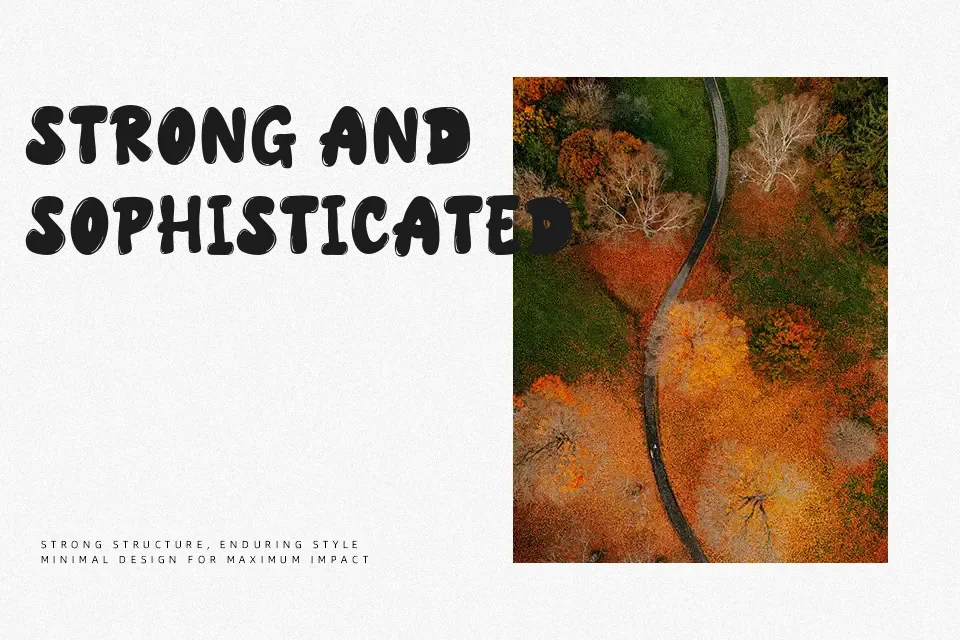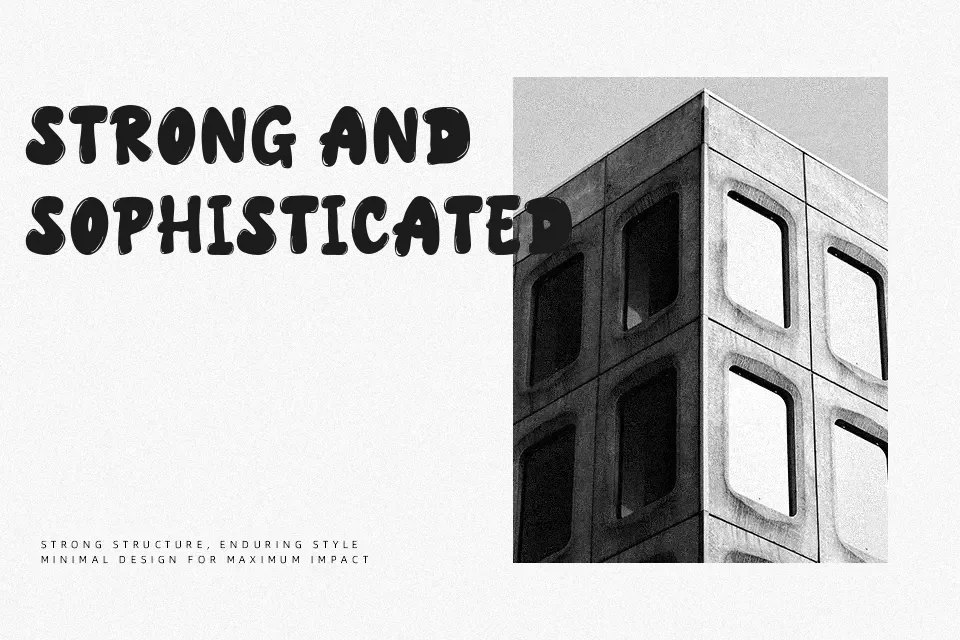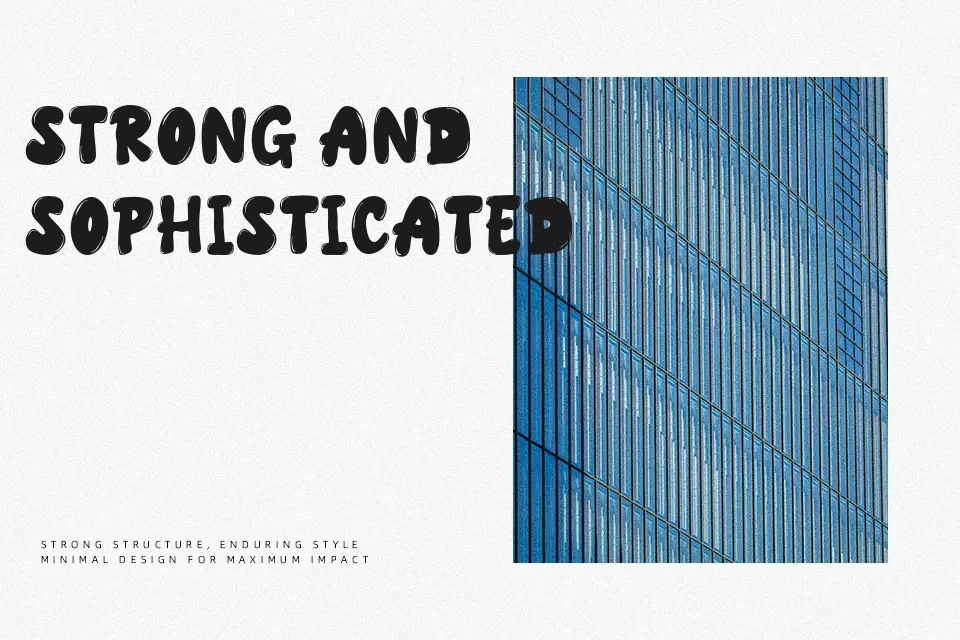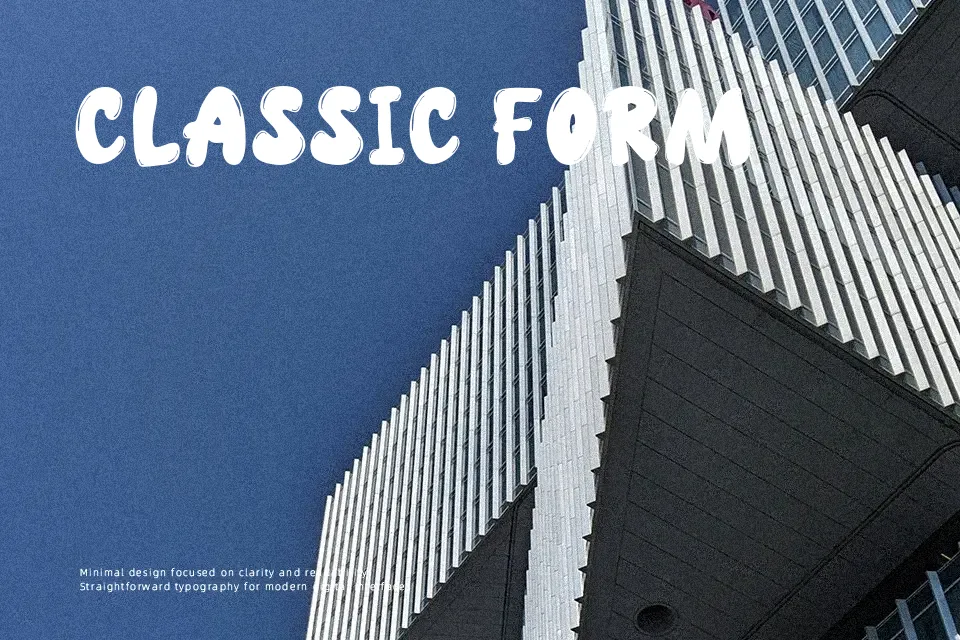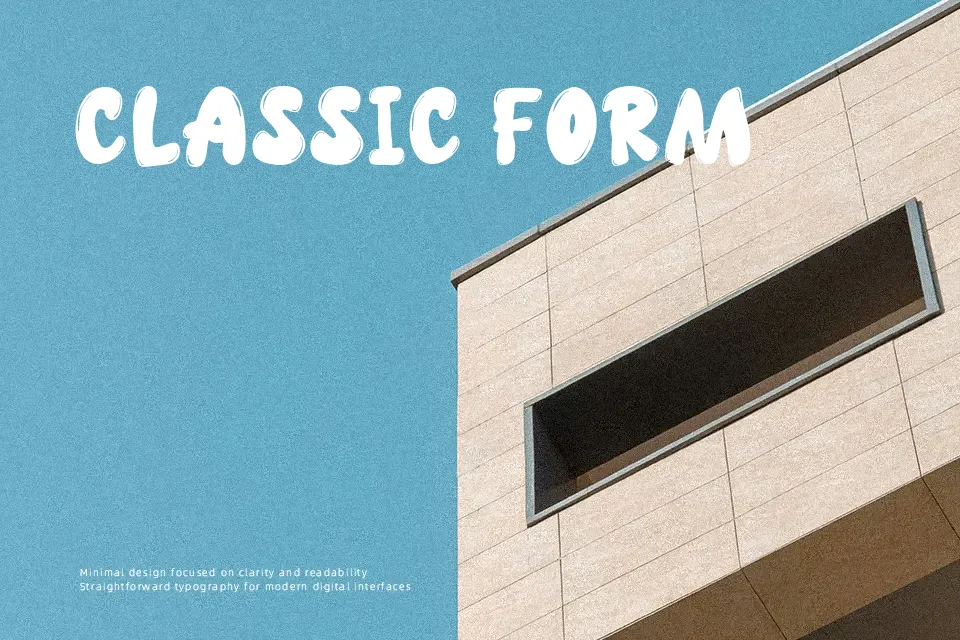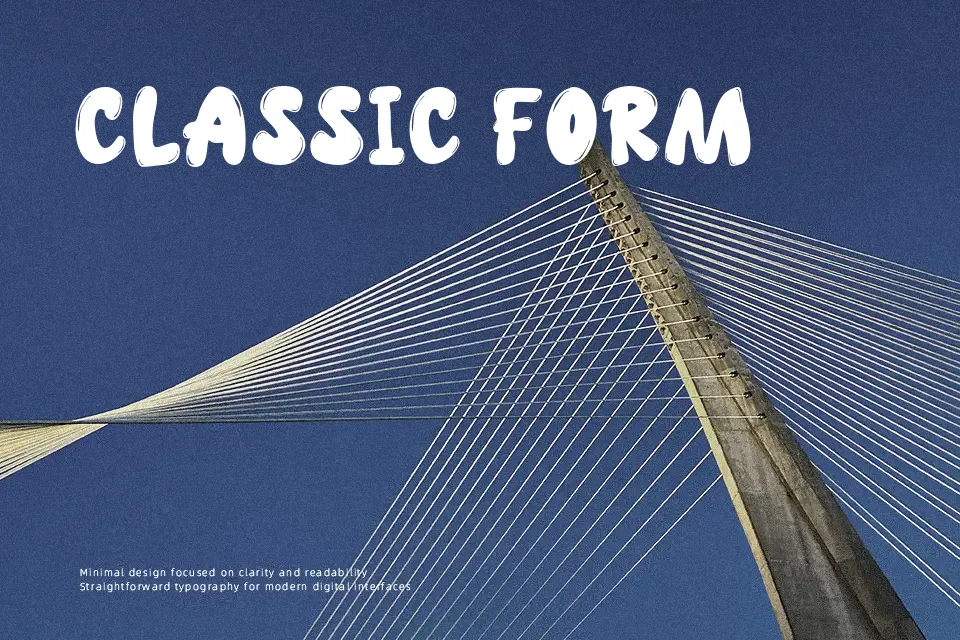
Spark Bubble Font
Spark Bubble Font uses wide, rounded letterforms and thick, smooth strokes to create a soft cartoon display look. The characters have inflated proportions, gentle curves, and a lively rhythm that makes short words stand out in posters, labels, and children’s design work. Spacing appears most effective when the type is given room in a headline or simple composition. The rounded construction keeps individual letters recognizable at larger sizes, but the heavy decorative forms become less comfortable in small captions or continuous text. It is a practical choice when a friendly, oversized visual voice matters more than dense readability.